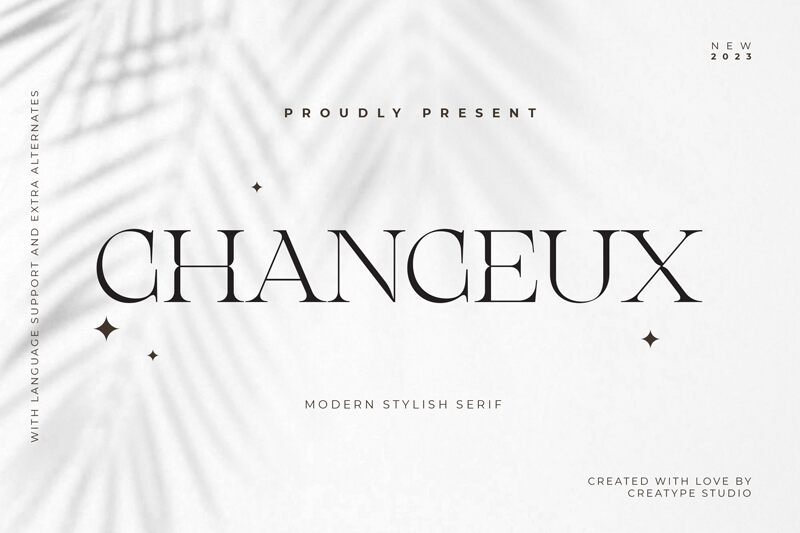
Chanceux
Chanceux font designed by Creatype Studio is an elegant and sophisticated serif typeface. It showcases refined, classic serif features with a vintage appeal, capturing an essence of timeless grace. The uniformity and precision in its design make this free serif font ideal for bringing a touch of classical elegance to any project.